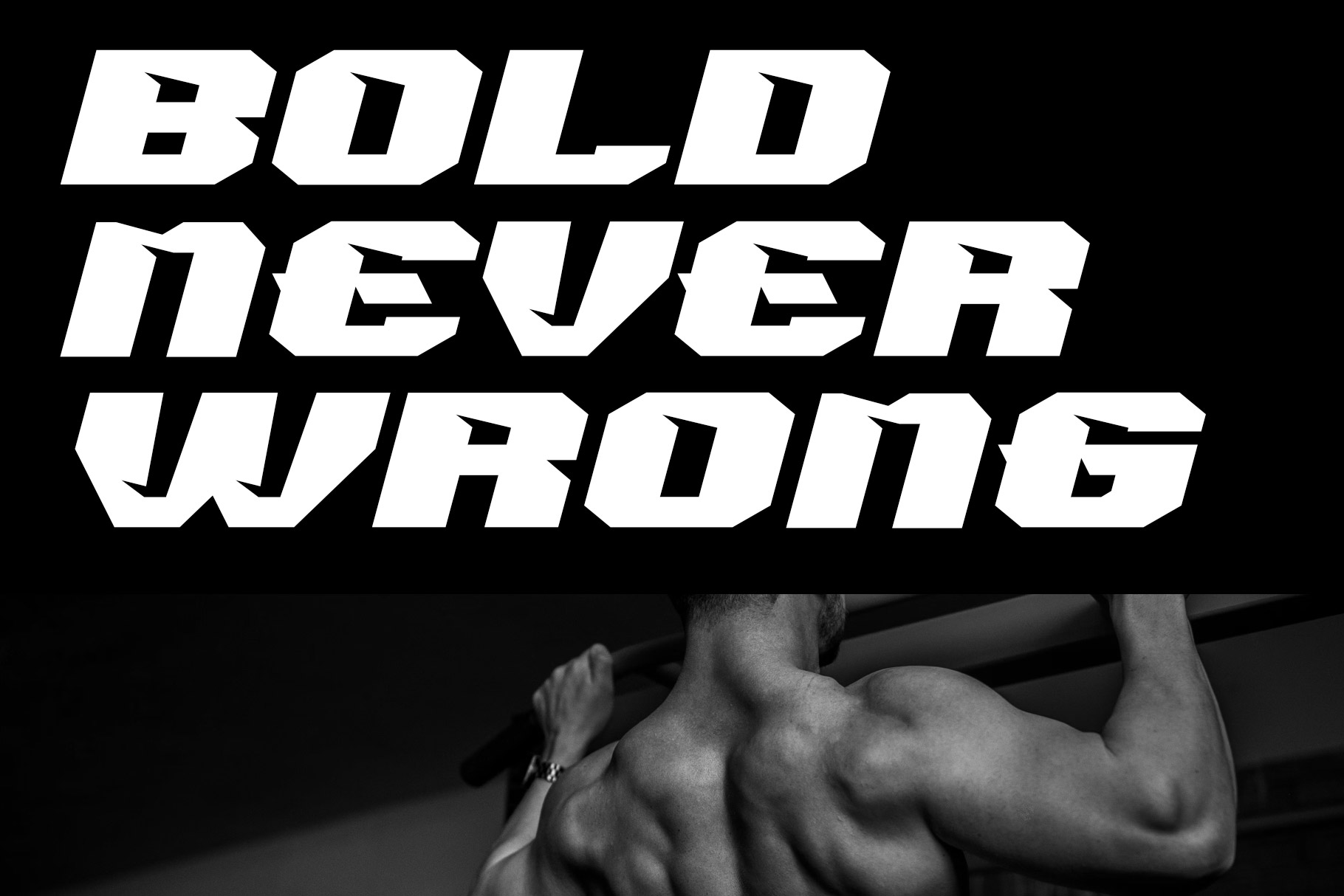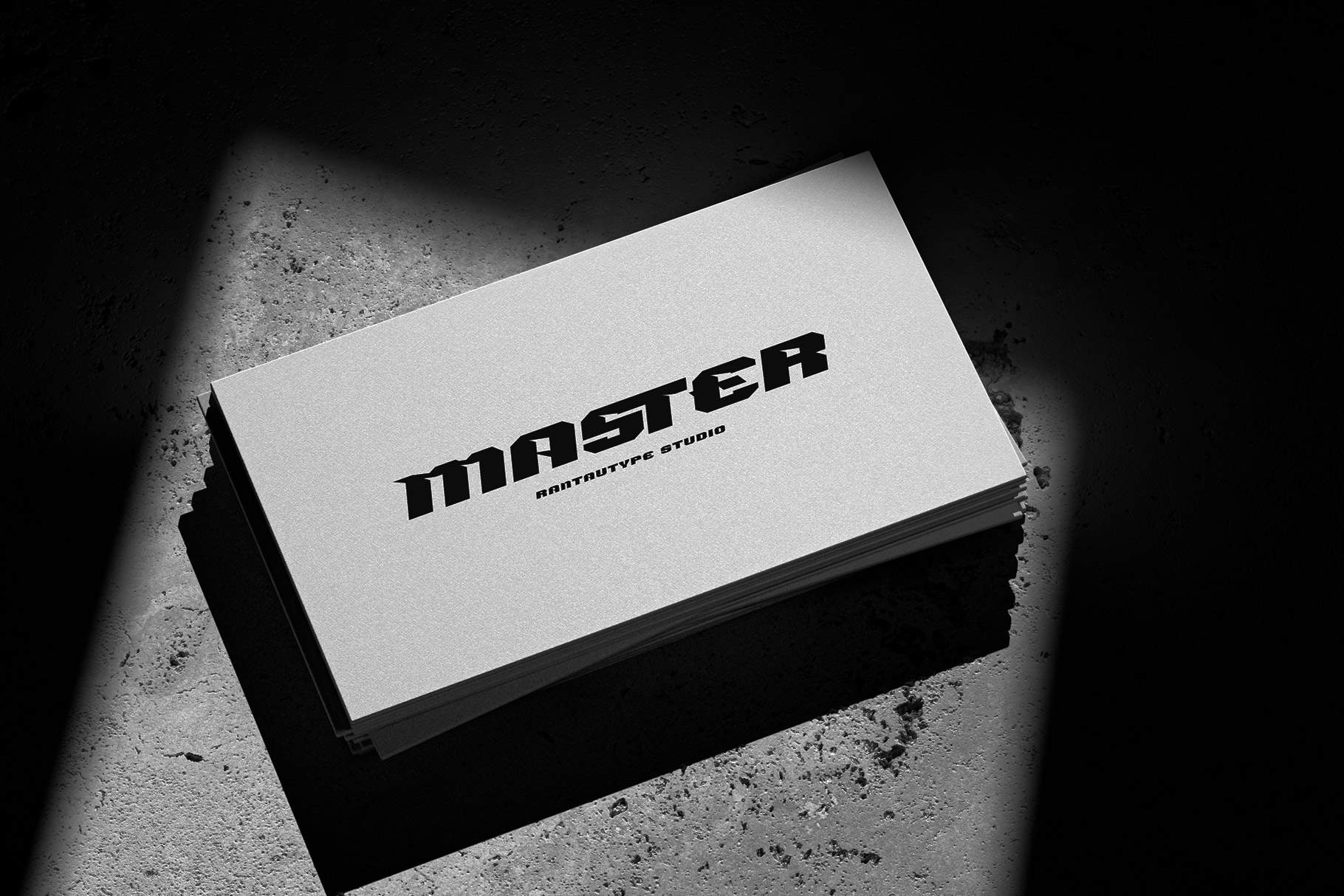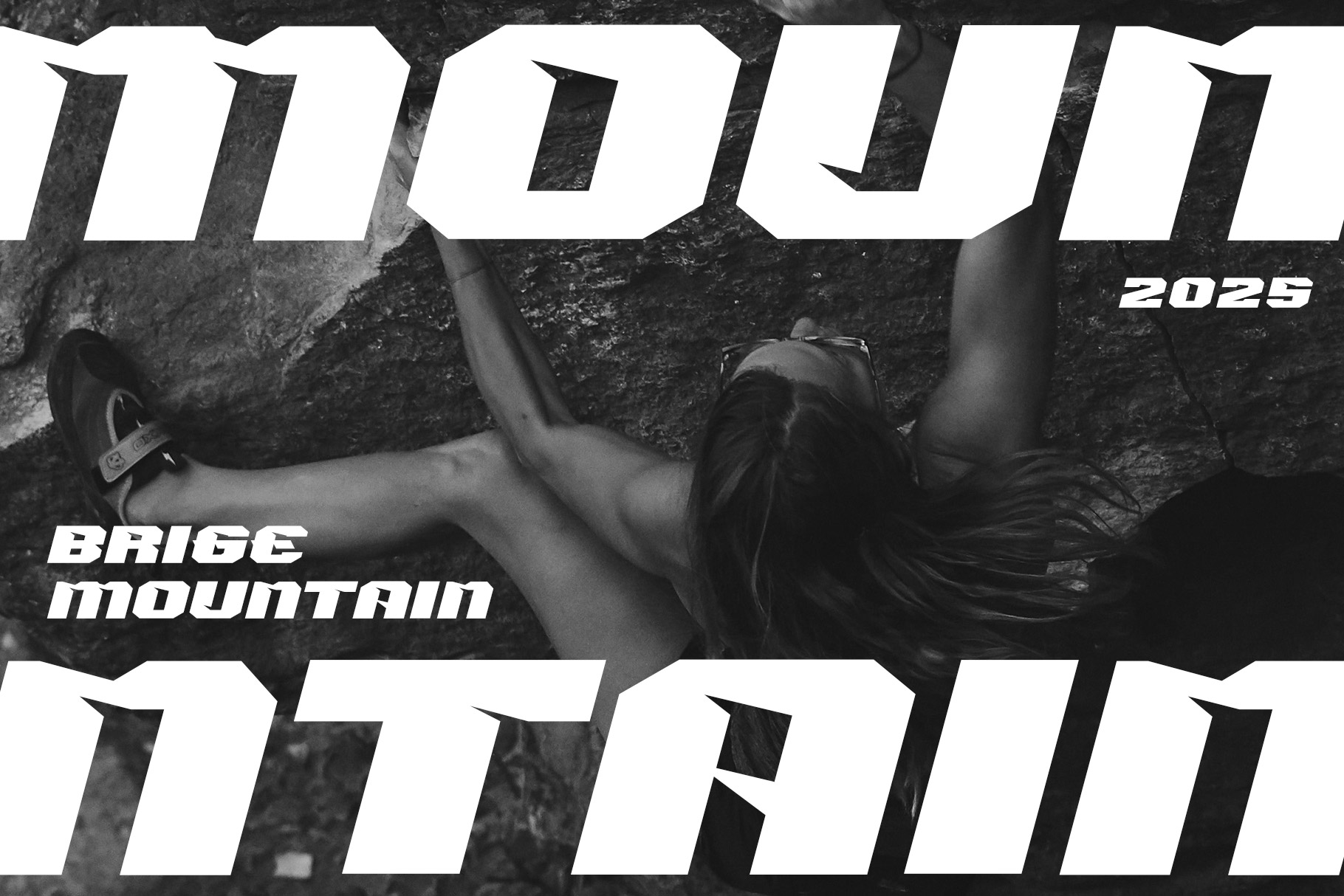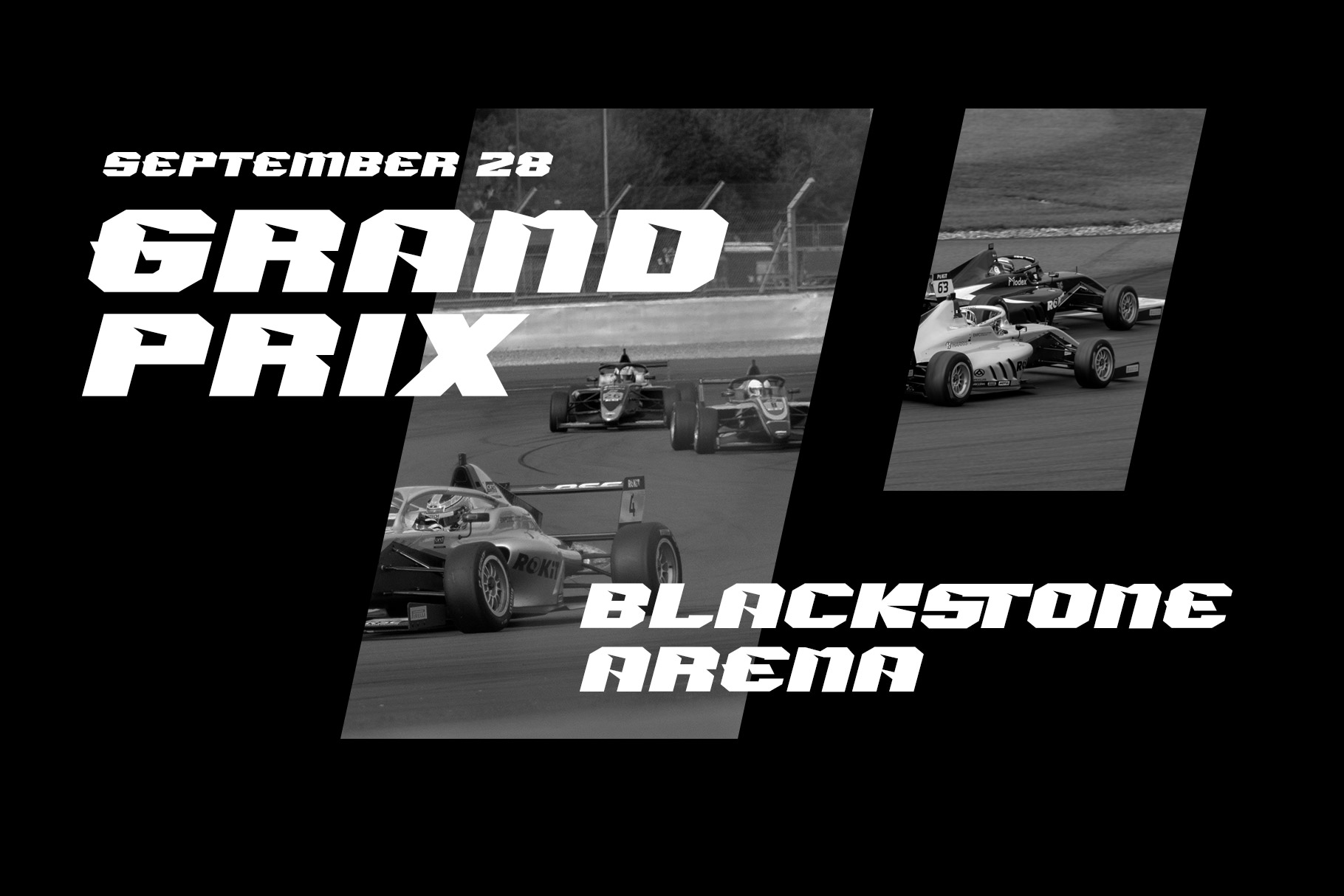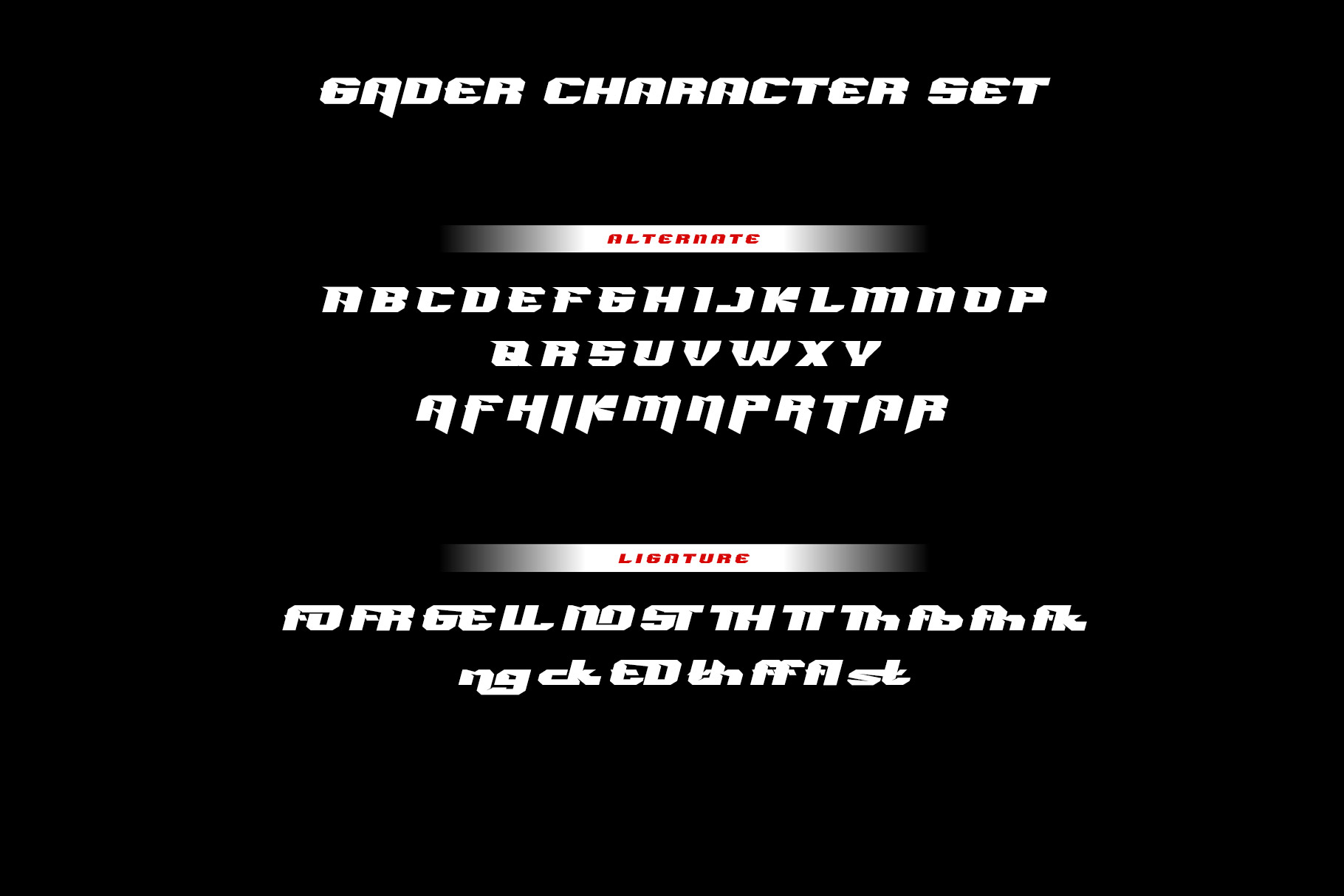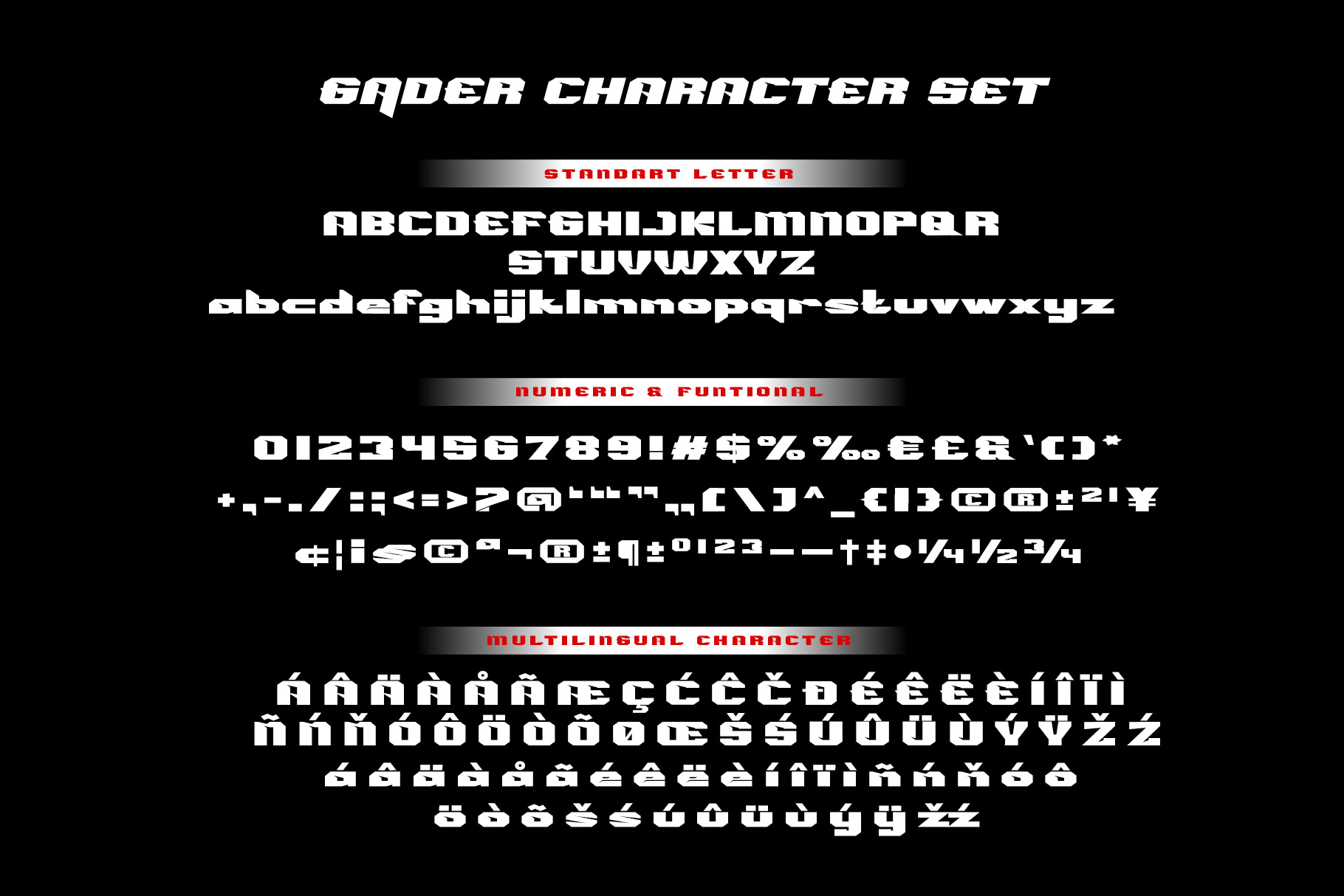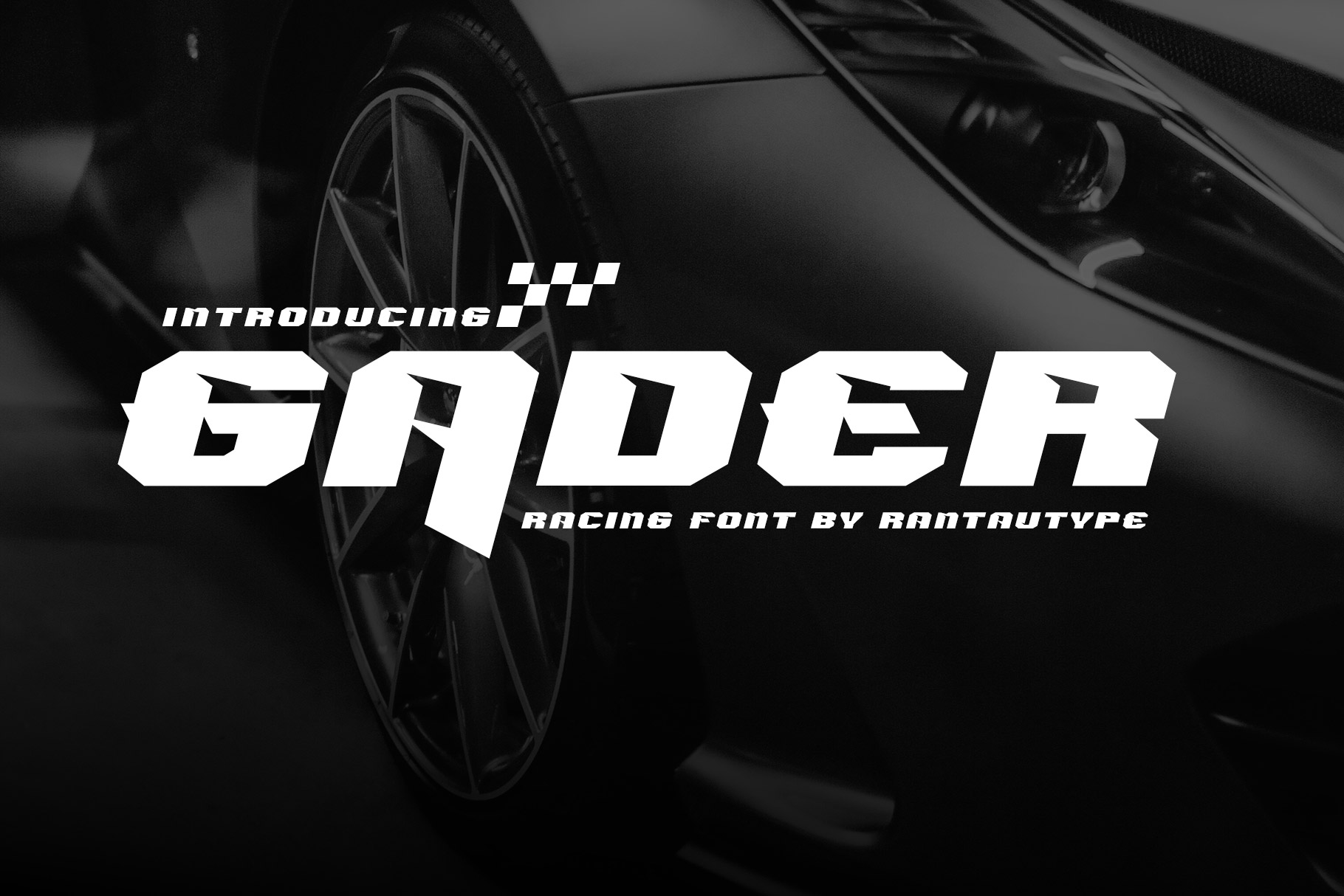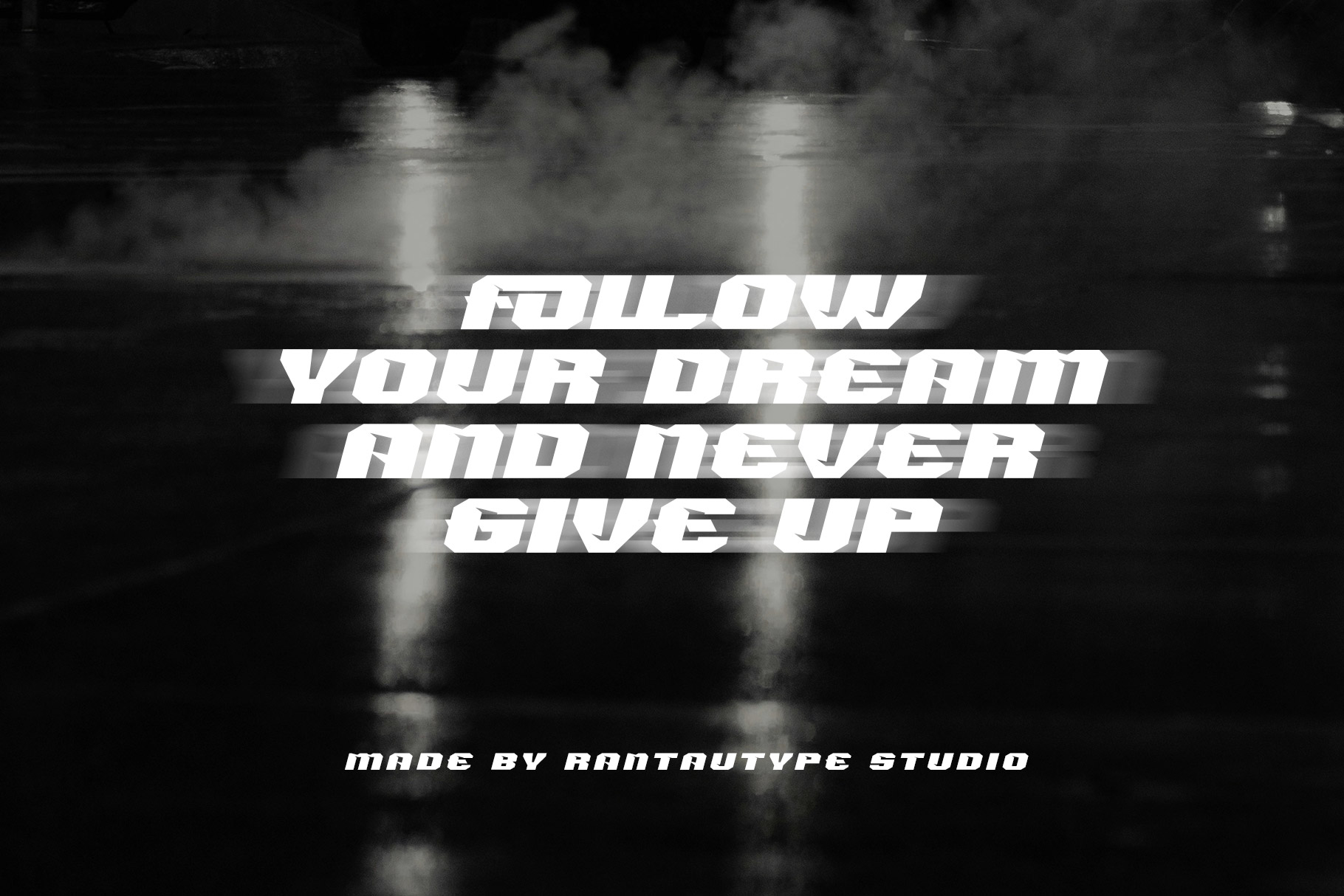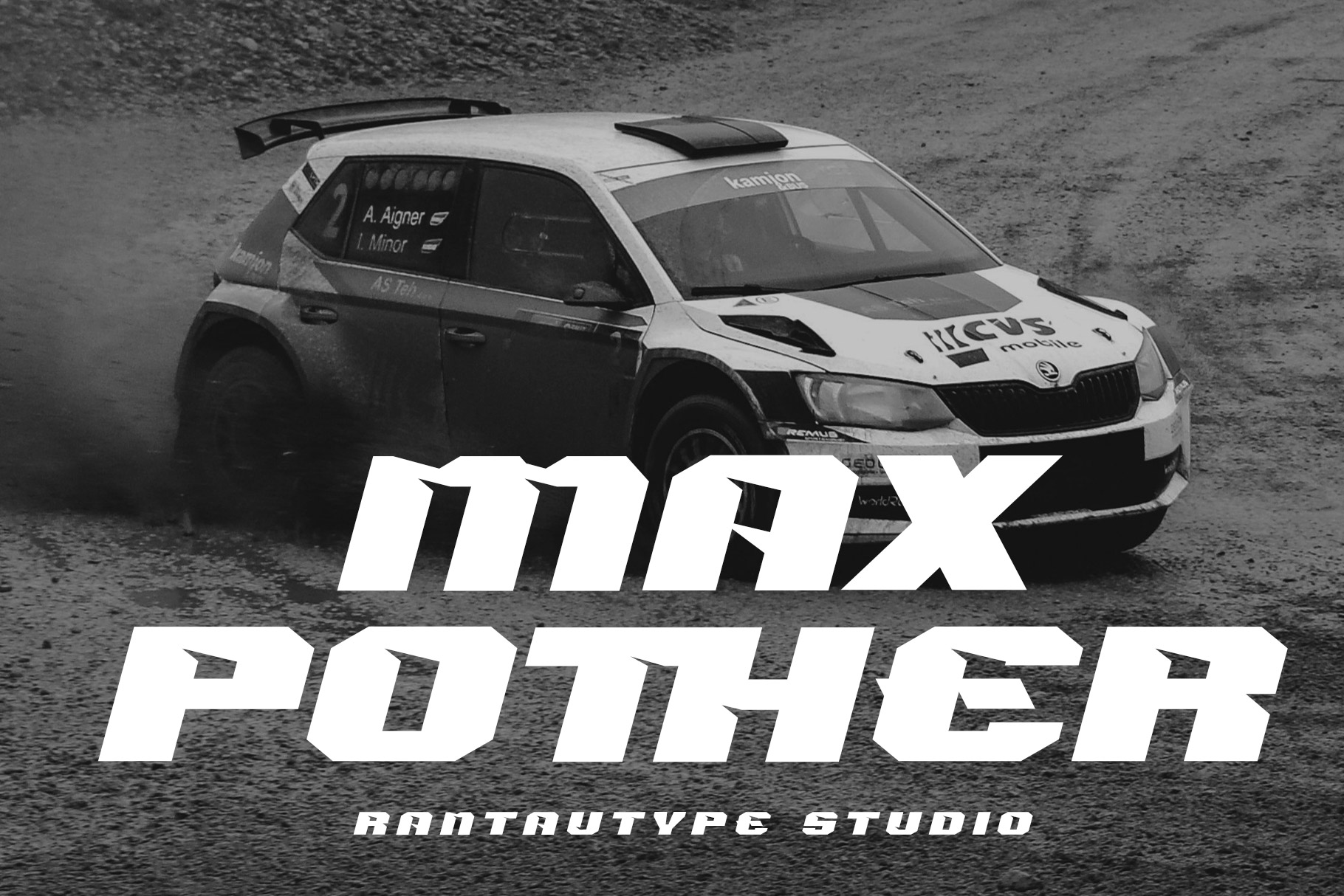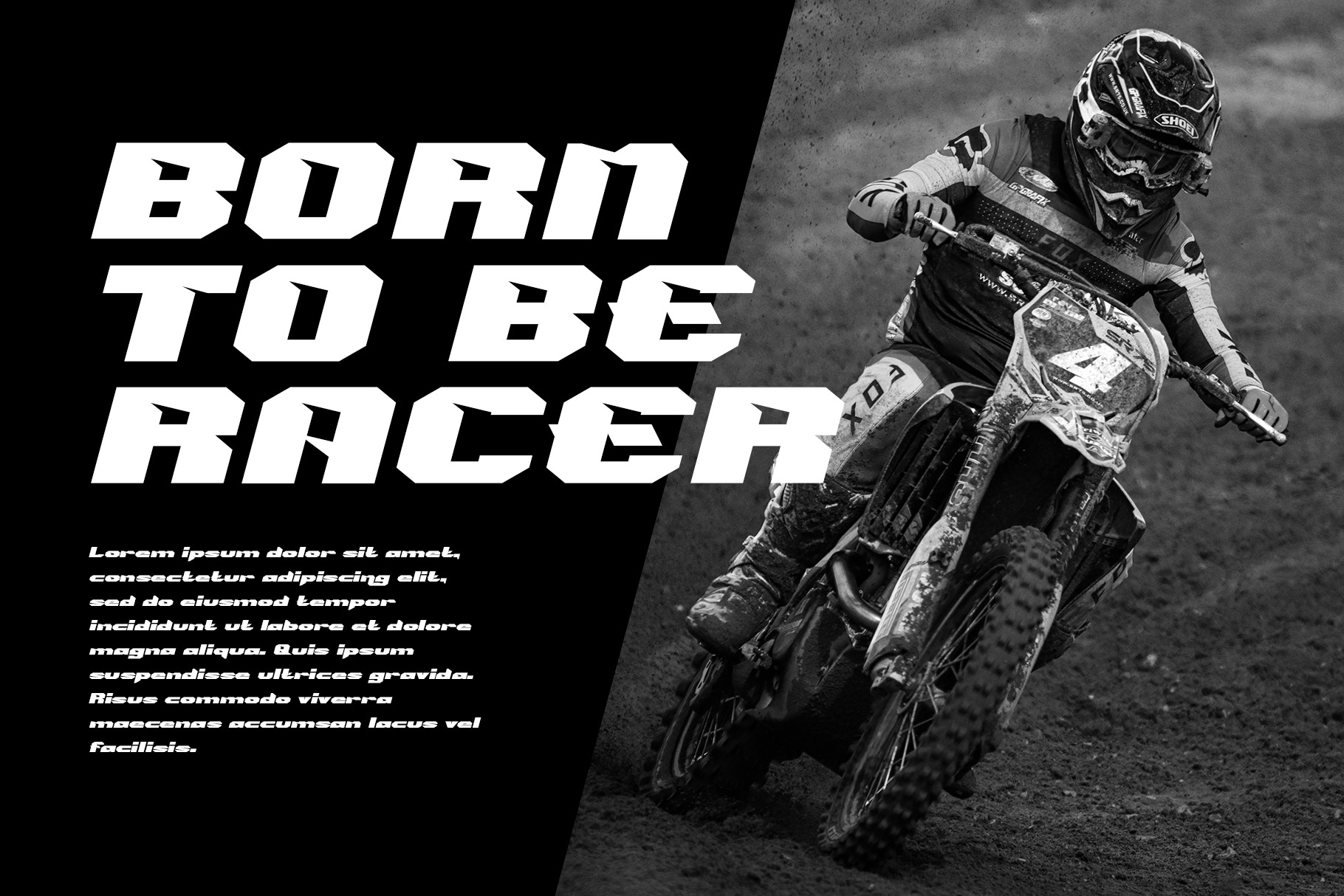
Gader Racing Font
Gader is designed to embody speed, adrenaline and high-performance energy. Its visual style captures the thrilling essence of motorsport, where every second counts and every detail matters. Gader is a perfectly choice for any creative endeavor, chic, lifestyle design such as logotype, advertisements, watermark on photography, stationery, branding project, display and magazine, invitation, corporate brand, product design, label, business project and many other project with futuristic touch.